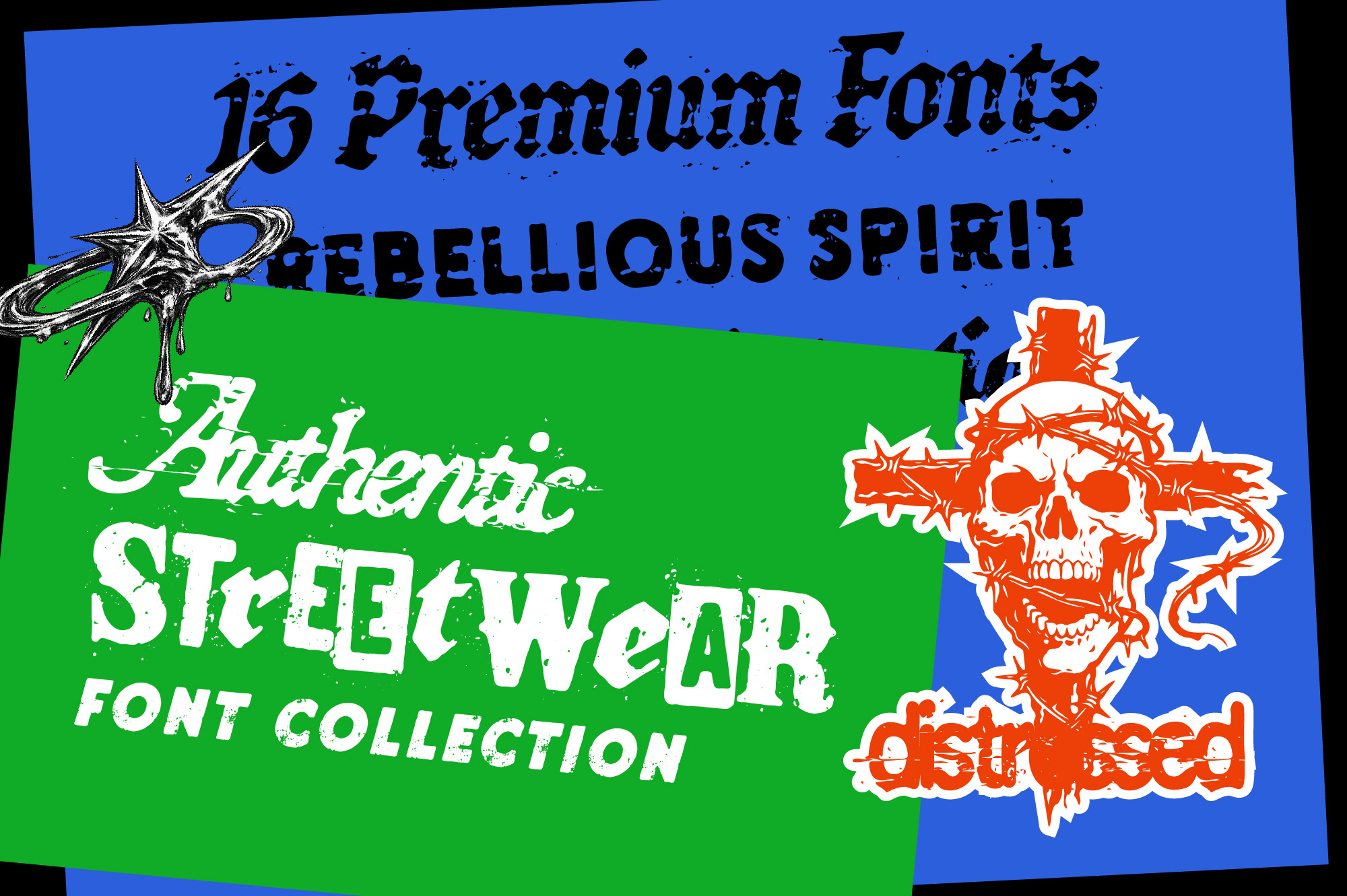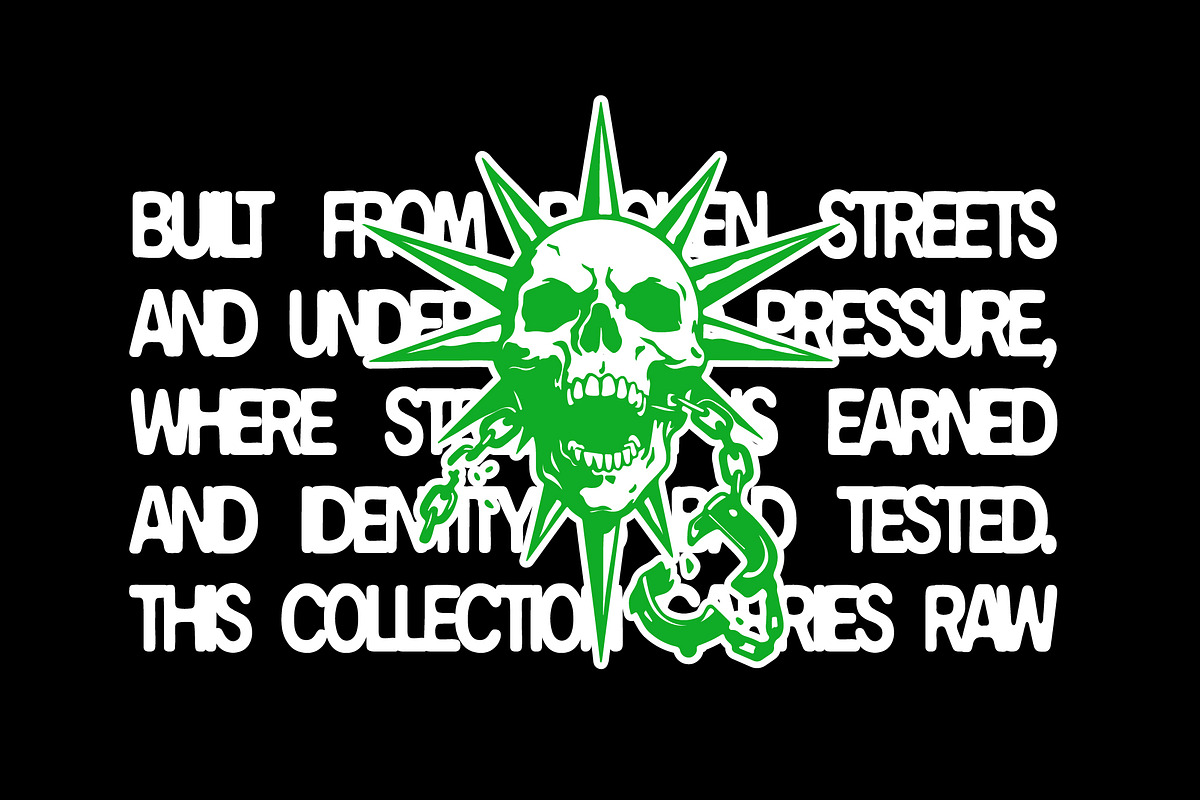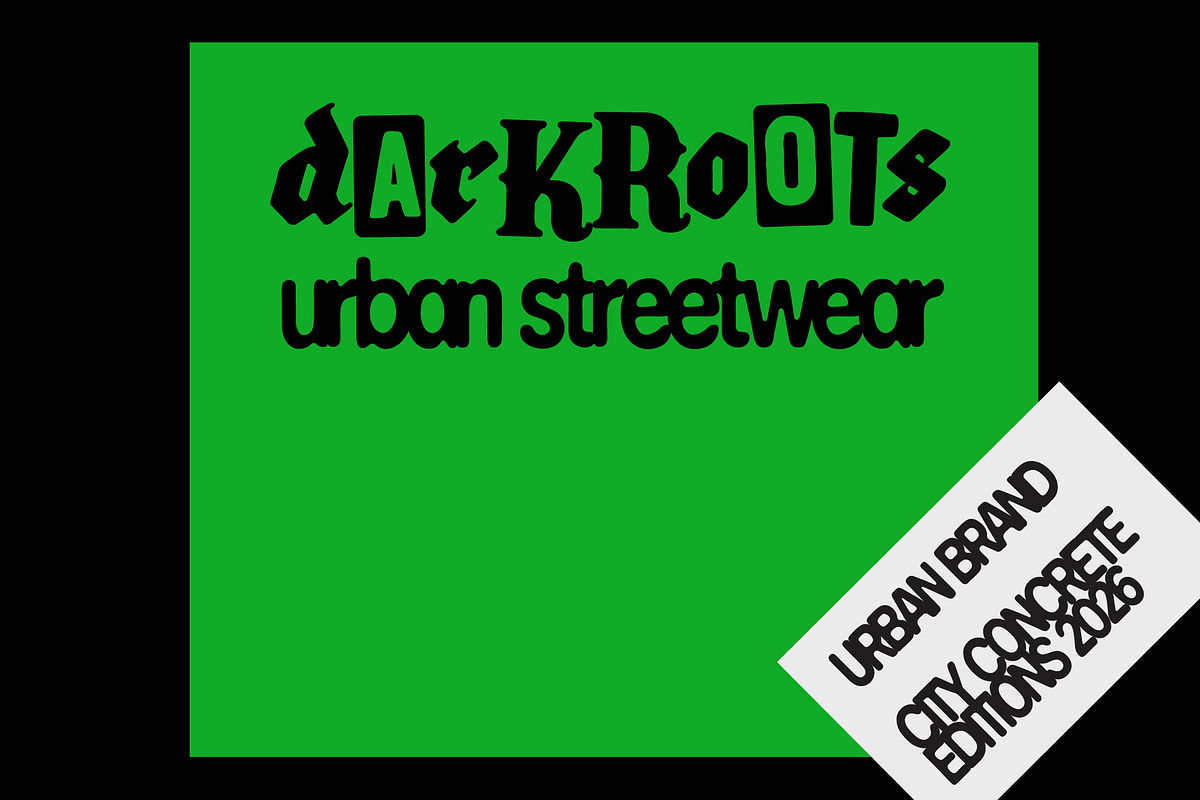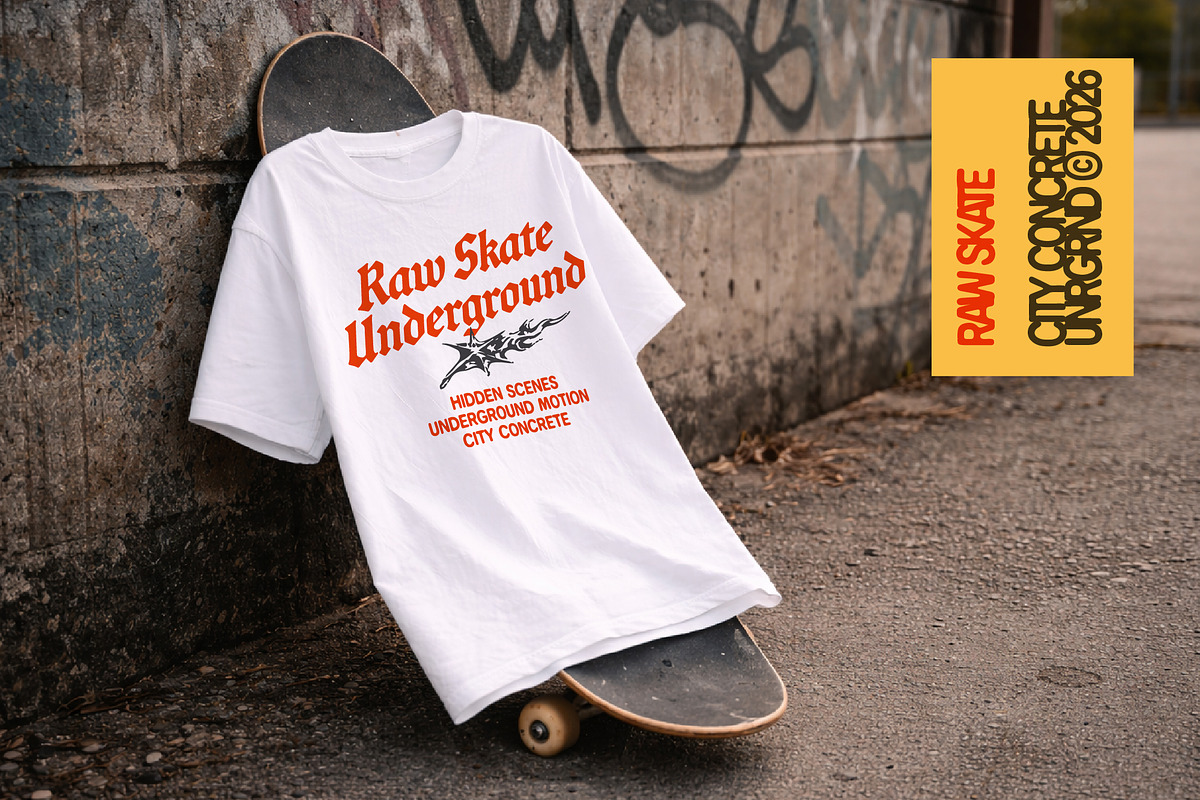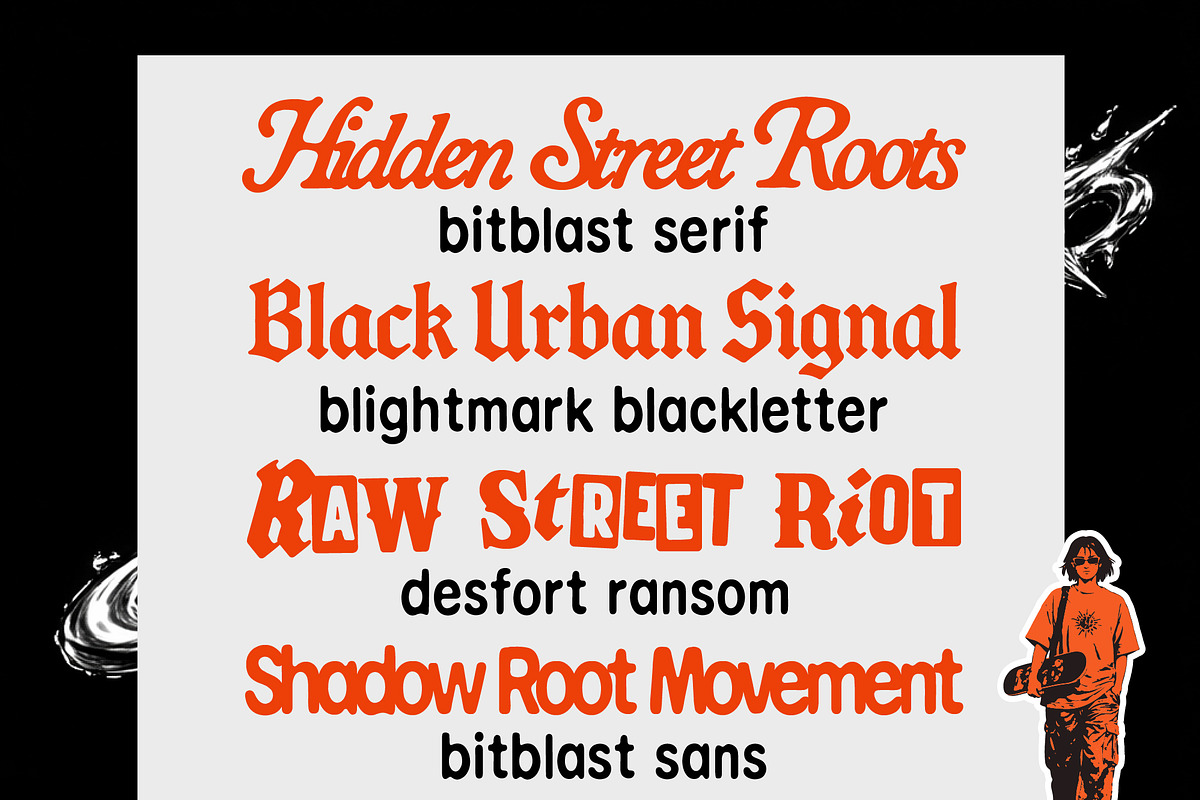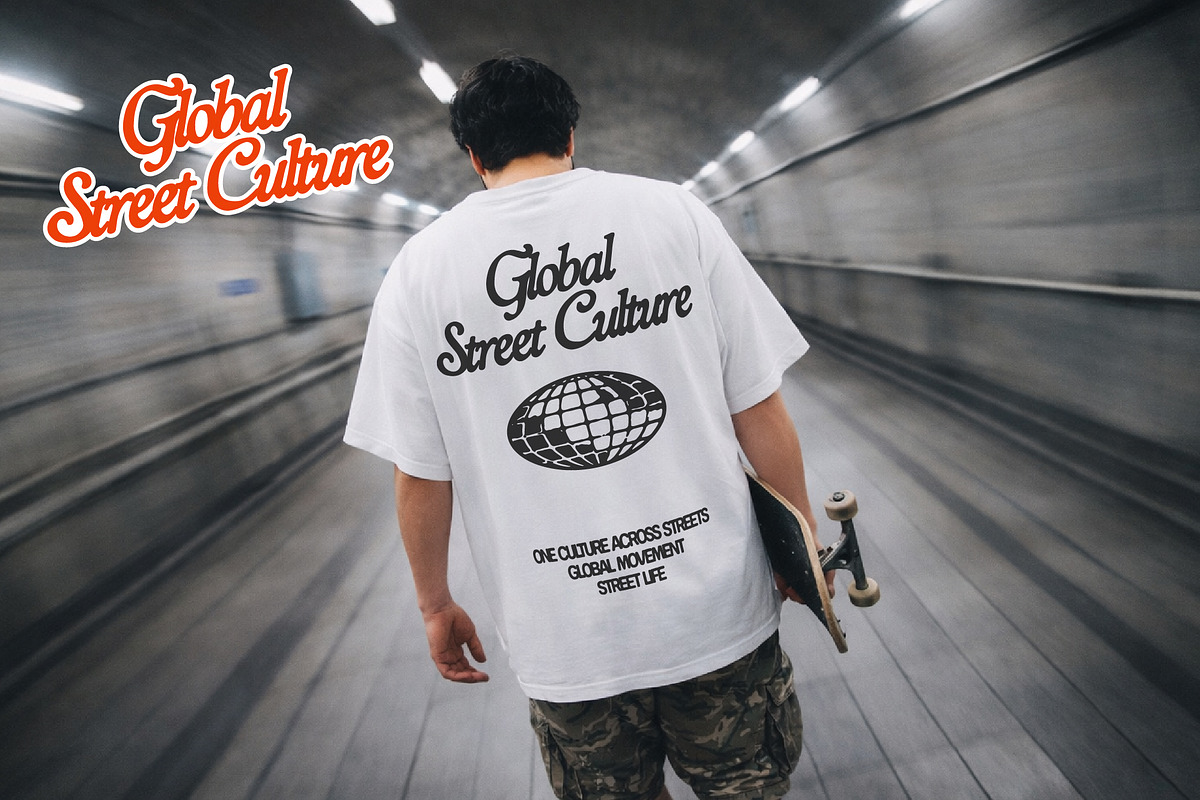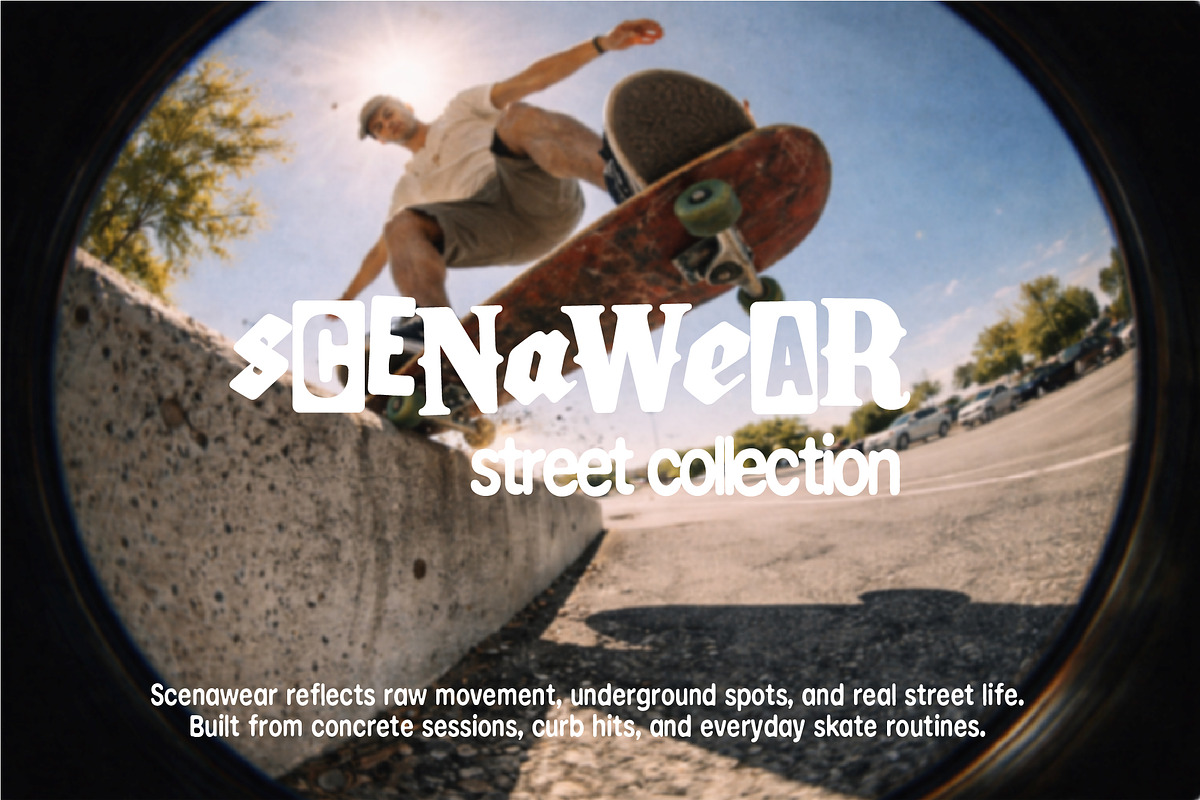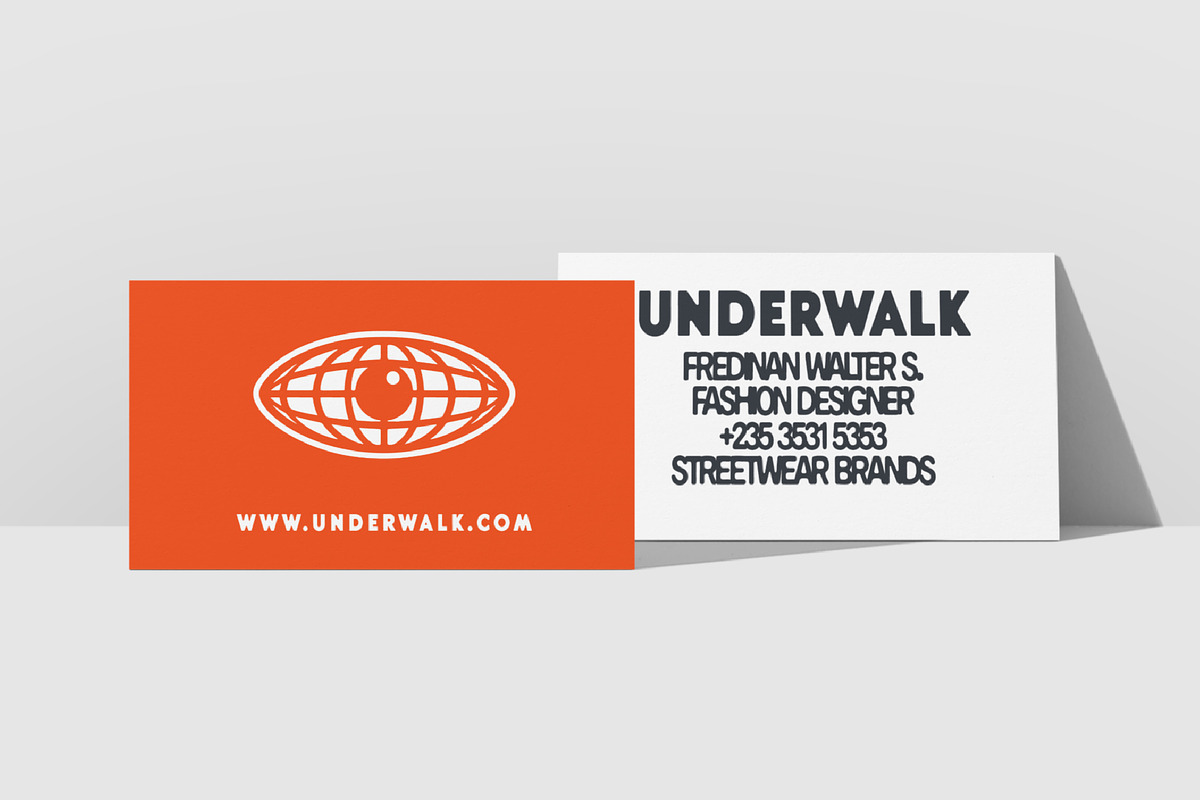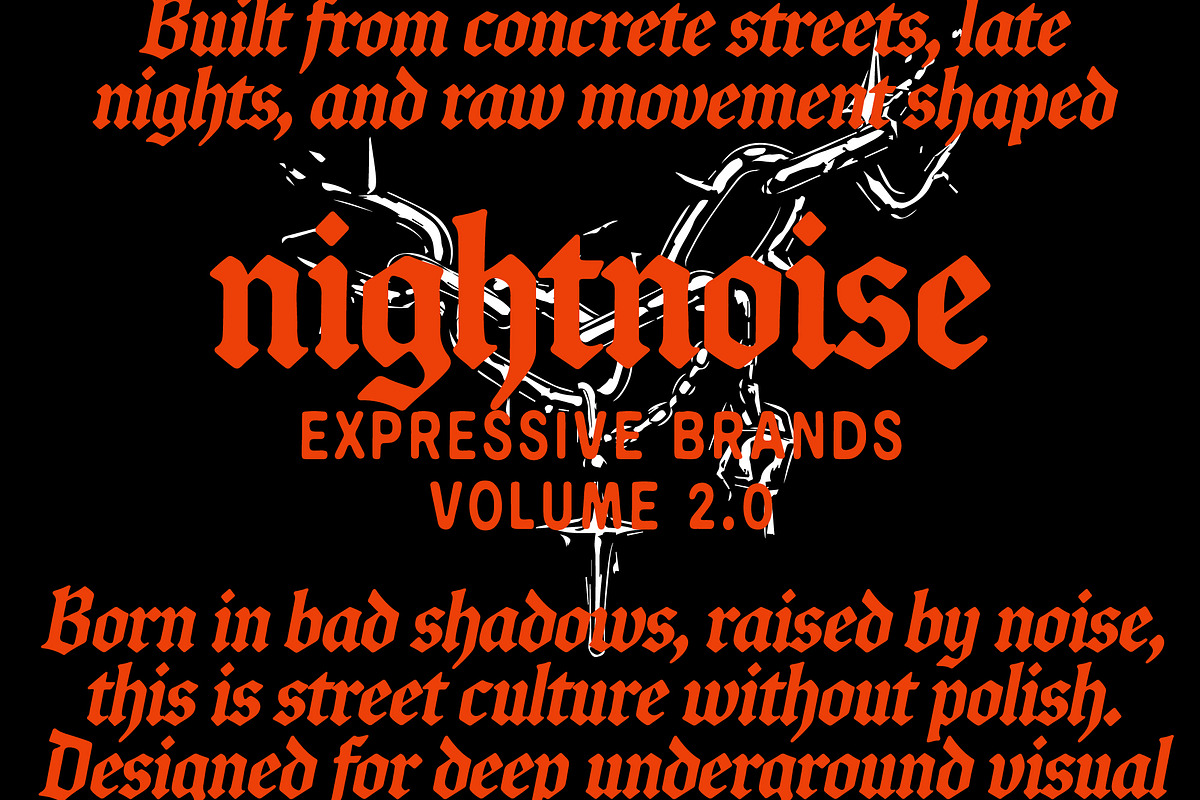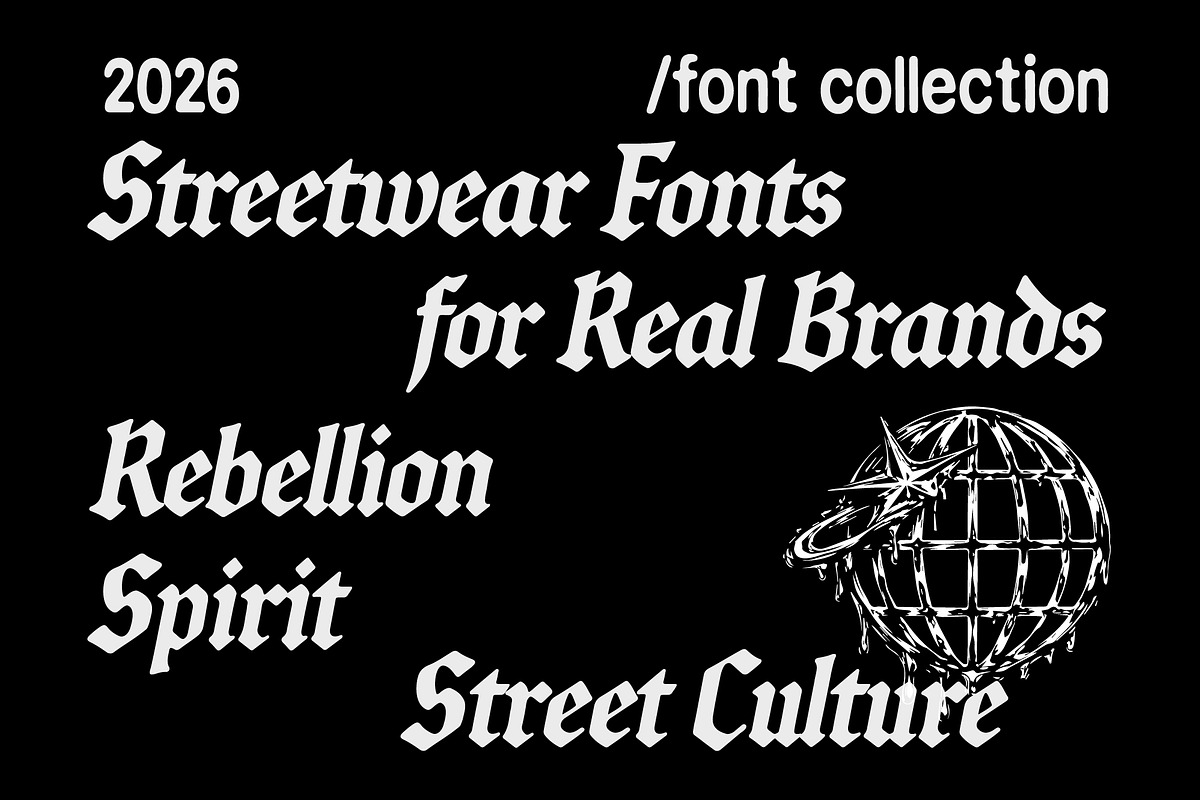
Authentic Streetwear - Font Bundle
Authentic Streetwear Font Bundle is a premium, hand-curated collection of bold display typefaces built to elevate streetwear branding at a professional level. Created for visual branding designers who work within street culture, skate labels, underground apparel, music merchandise, and urban campaigns, this bundle delivers raw attitude, strong identity, and high-impact presence—without searching across multiple font families.
Carefully selected from Edignwn Type’s display library, this collection brings together blackletter aggression, ransom-style chaos, bold serifs, and contemporary sans styles that define authentic street aesthetics. Each typeface carries its own distinctive personality while working cohesively as a complete streetwear branding system—perfect for apparel graphics, lookbooks, posters, album covers, packaging, and bold visual statements.
This bundle includes 8 premium typefaces:
- Blightmark Blackletter
- Blightmark Oblique
- Blightmark Sans
- Bitblast Serif
- Bitblast Sans
- Desfort Ransom
- Hintdake Blackletter
- Hintdake Sans
- 8 curated display typefaces for streetwear branding
- Each typeface includes Regular and Textured styles
- Mix of blackletter, ransom, serif, and sans styles
- Some fonts include uppercase, lowercase, alternates, ligatures, symbols, and punctuation
- Some fonts include all-caps, numerals, symbols, and punctuation